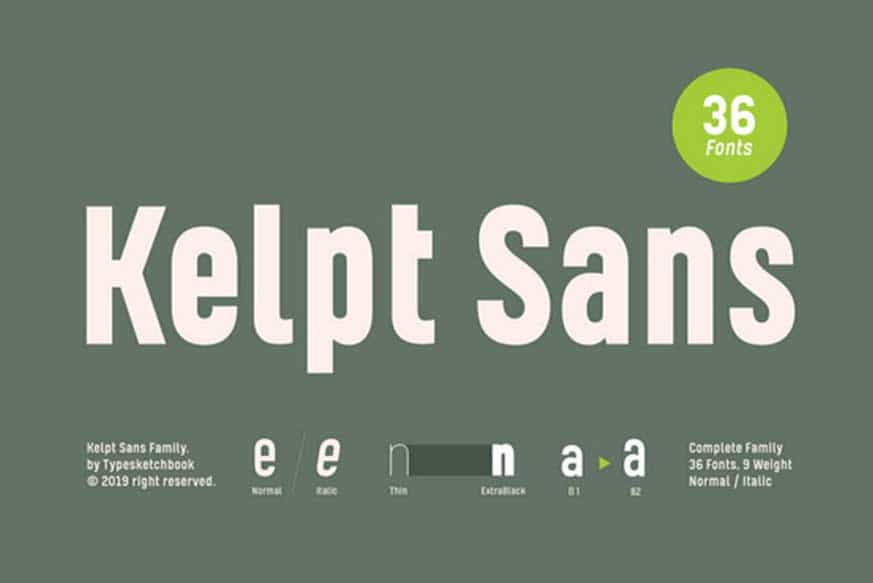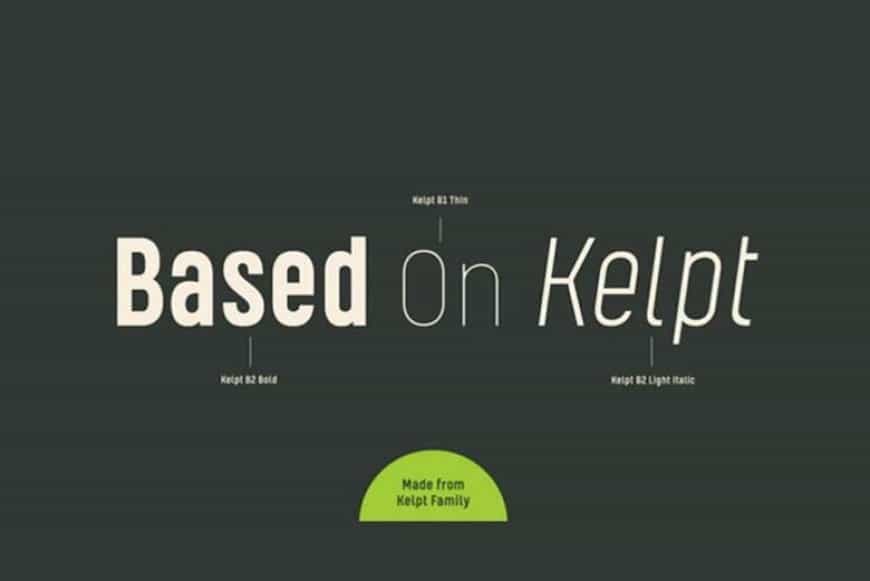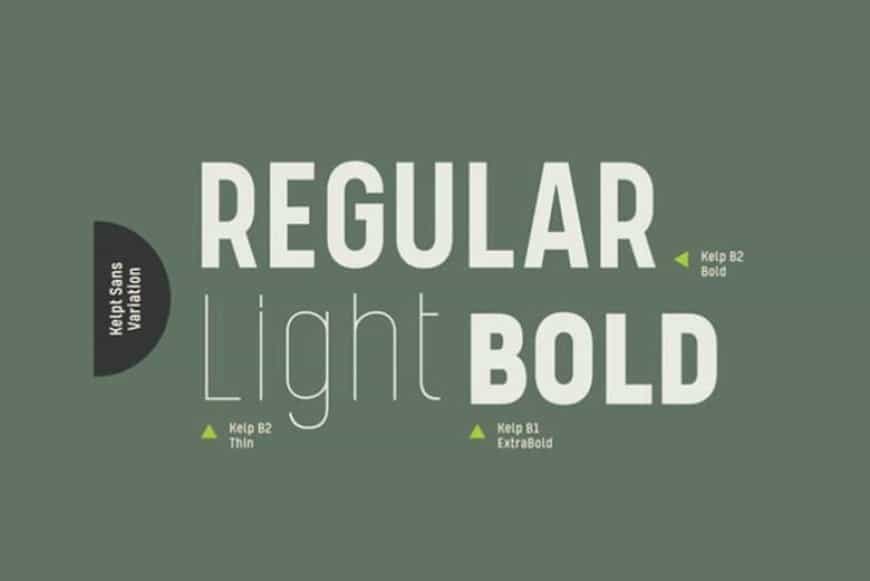
Kelpt Sans Font Family is an altered modified from the form of the original Kelpt typeface. Designed to be more Corporate, the font family has flat terminals that harmonizes with sharp corners. With all of these features, “Kelpt Sans” is a prominent, eye-catching and unique typeface.